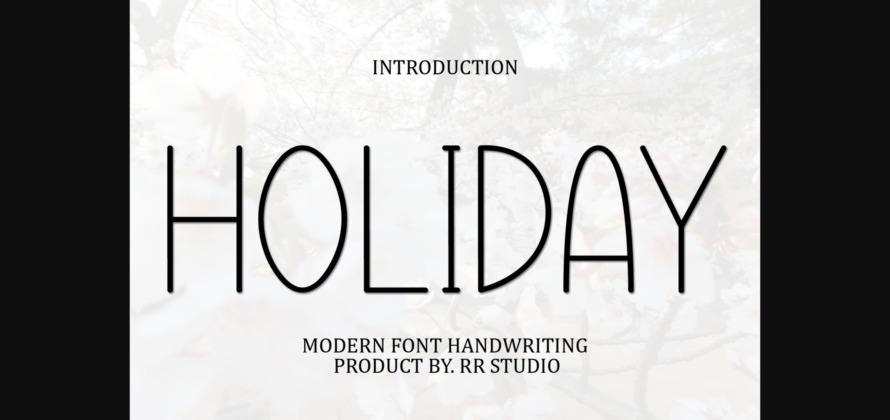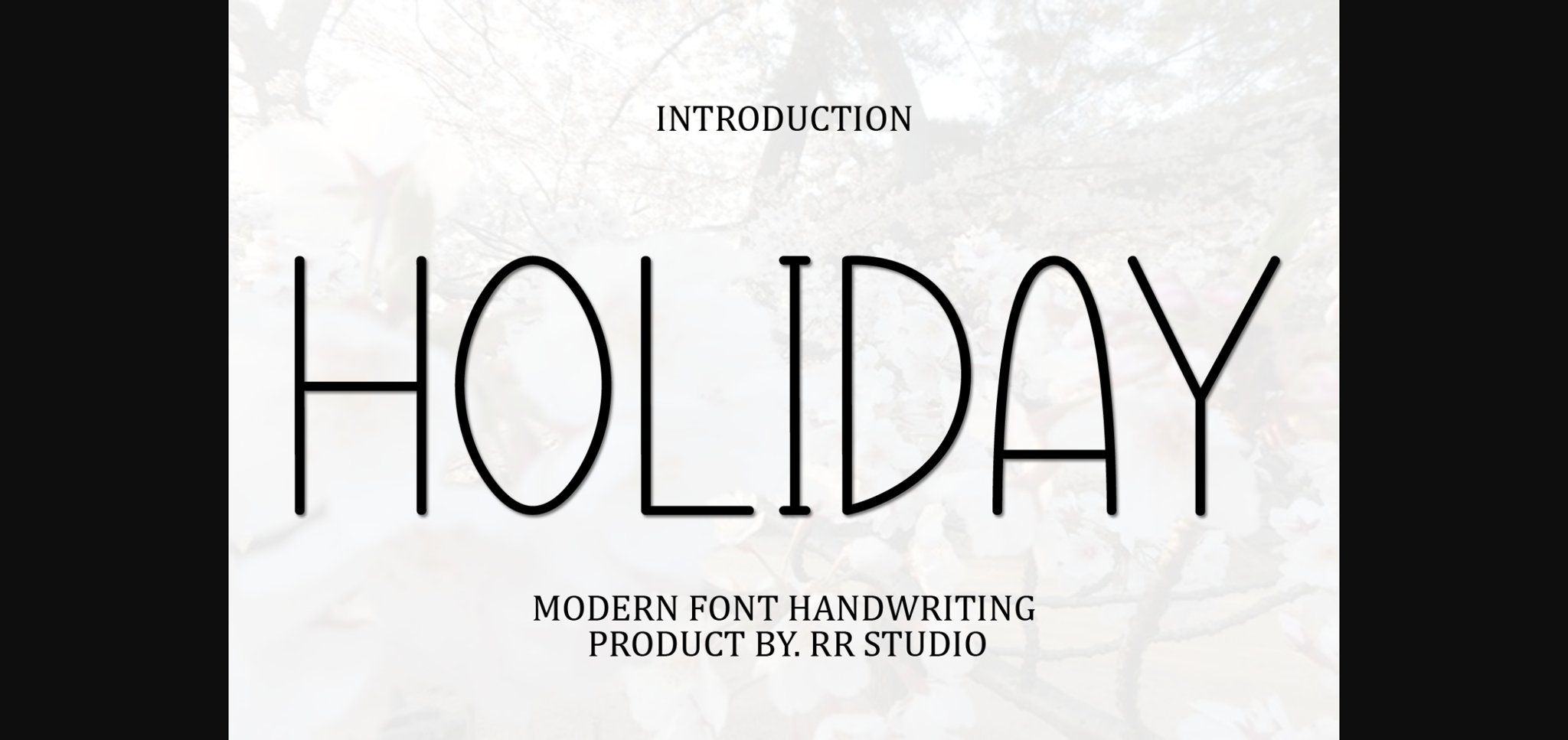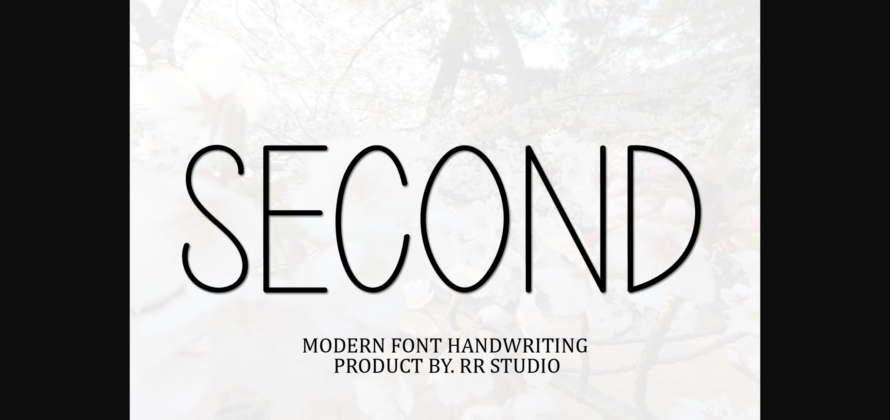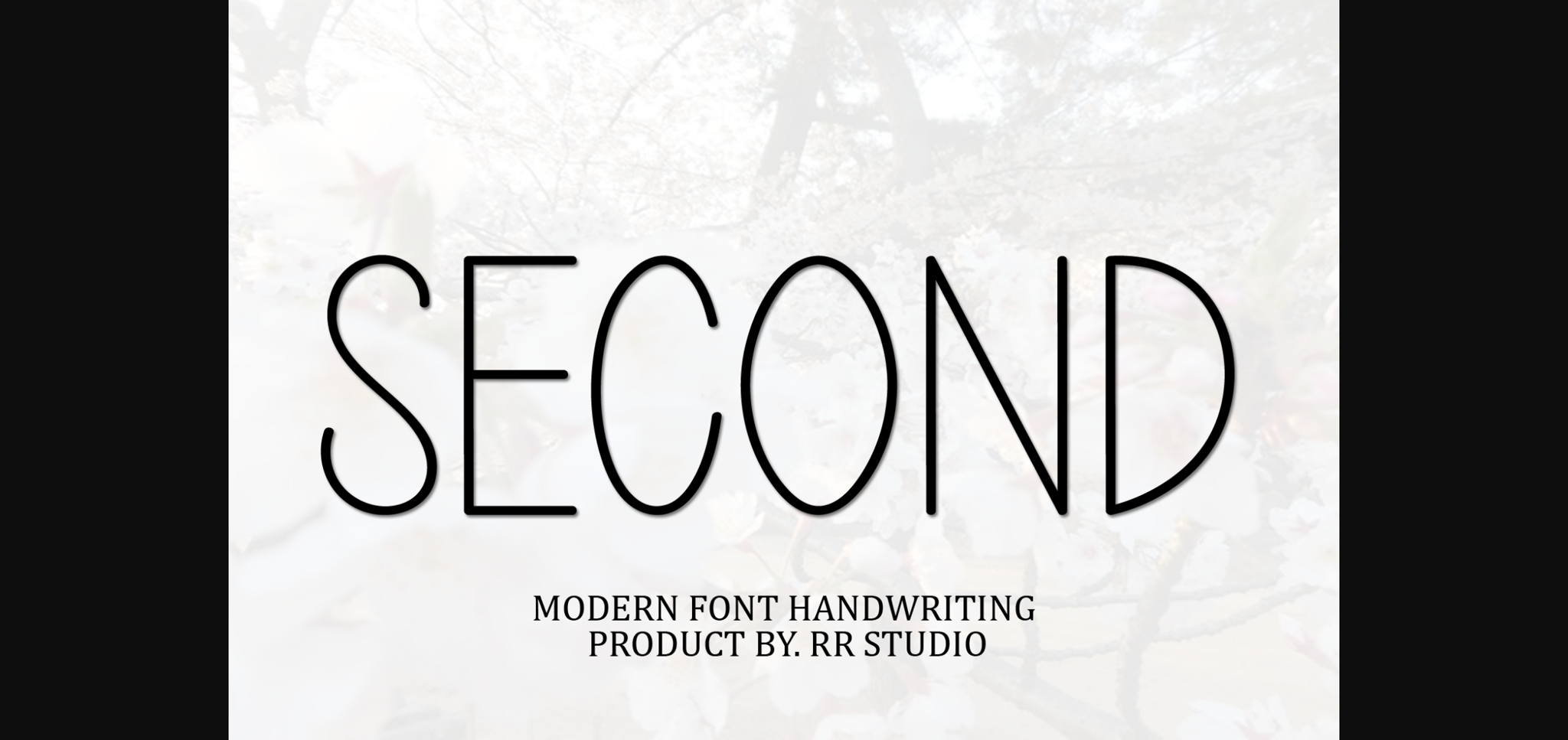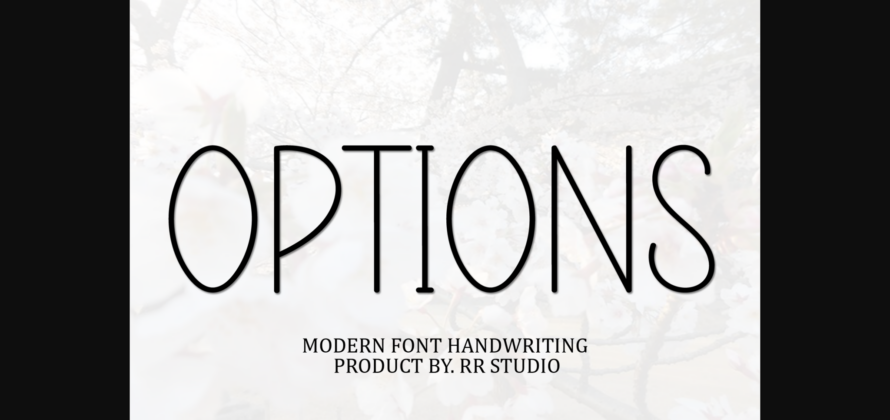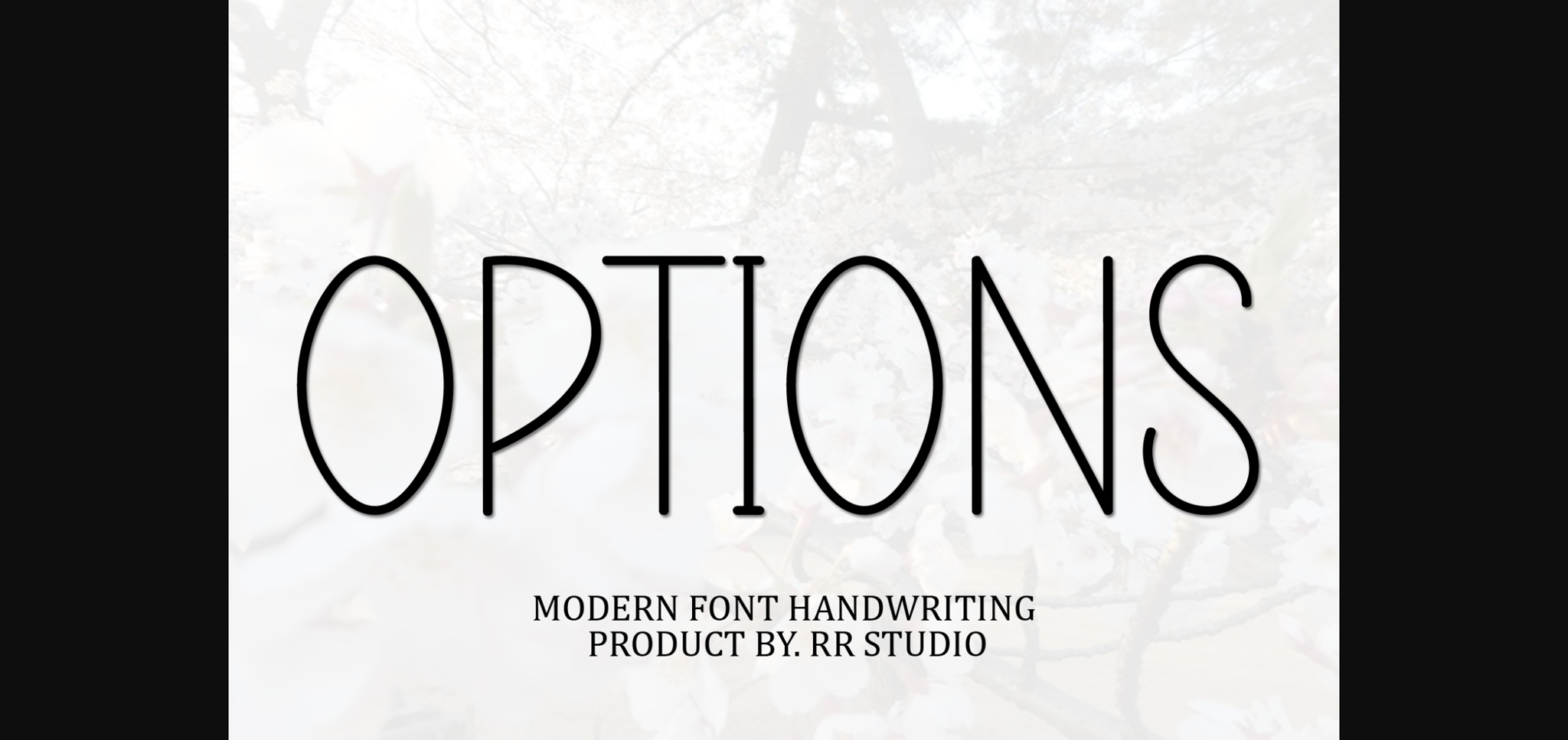
Holiday Font
About Holiday Font
Holiday is a straightforward and tidy sans-serif font that embodies simplicity and clarity. Its clean lines and balanced proportions make it perfect for various design applications, from body text in publications to headers on websites. Holiday maintains readability while offering a modern and uncluttered aesthetic for your projects.